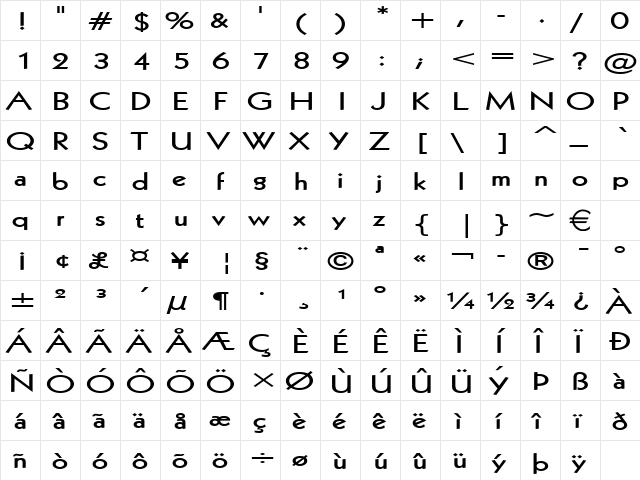
Geo112Extended Bold
Design Context for Geo112Extended Typeface
Geo112Extended takes a measured approach to typography — its balanced proportions and neutral character make it a reliable workhorse for both digital and print work. Its bold stroke weight gives it real presence on the page.